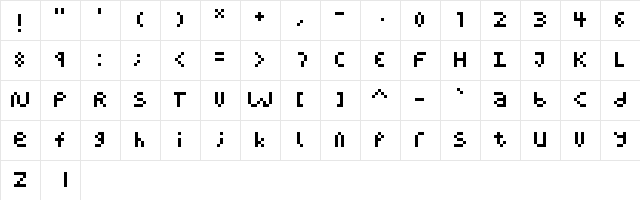
Pixel Block BB Regular
| Designer | Gazek |
Design Context for Pixel Block BB Typeface
Pixel Block BB celebrates the constraints of early digital type, turning pixel geometry into a distinctive and immediately recognisable style.
A natural choice for retro game titles, chiptune music branding, 8-bit UI, and digital nostalgia projects.